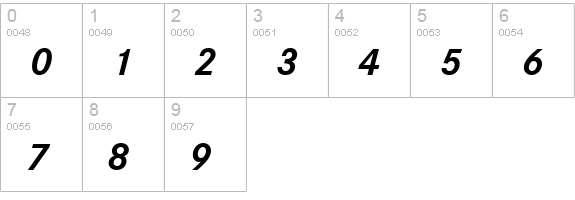
CorpoS Bold Italic Font Details
CorpoS Bold Italic is a strong, high-contrast, italic variant in the CorpoS typeface family \xE2\x80\x94 well suited to headlines, attention-grabbing titles, and strong calls-to-action.
CorpoS Bold Italic font exudes sophistication and modernity with its sleek design and elegant curves. This font is perfect for creating eye-catching titles and headings that demand attention. The bold italic style adds a touch of flair and personality to your designs, making them stand out from the crowd. Best of all, CorpoS Bold Italic font is available for free download at FontsMarket.com. Whether you're working on a branding project, a website design, or a poster, this versatile font will elevate your work to the next level. Don't miss out on the opportunity to add this stunning font to your collection today!